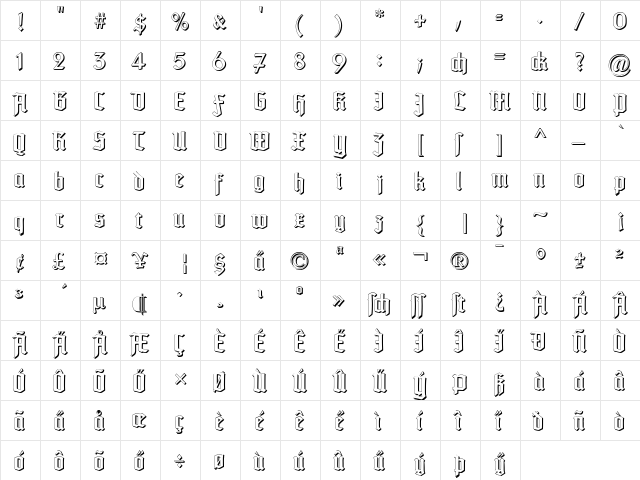
TypographerTextur Schatten Regular
| Designer | Dieter Steffmann |
Design Context for TypographerTextur Schatten Typeface
TypographerTextur Schatten is a composed and adaptable typeface that performs quietly and consistently across a wide range of design contexts.